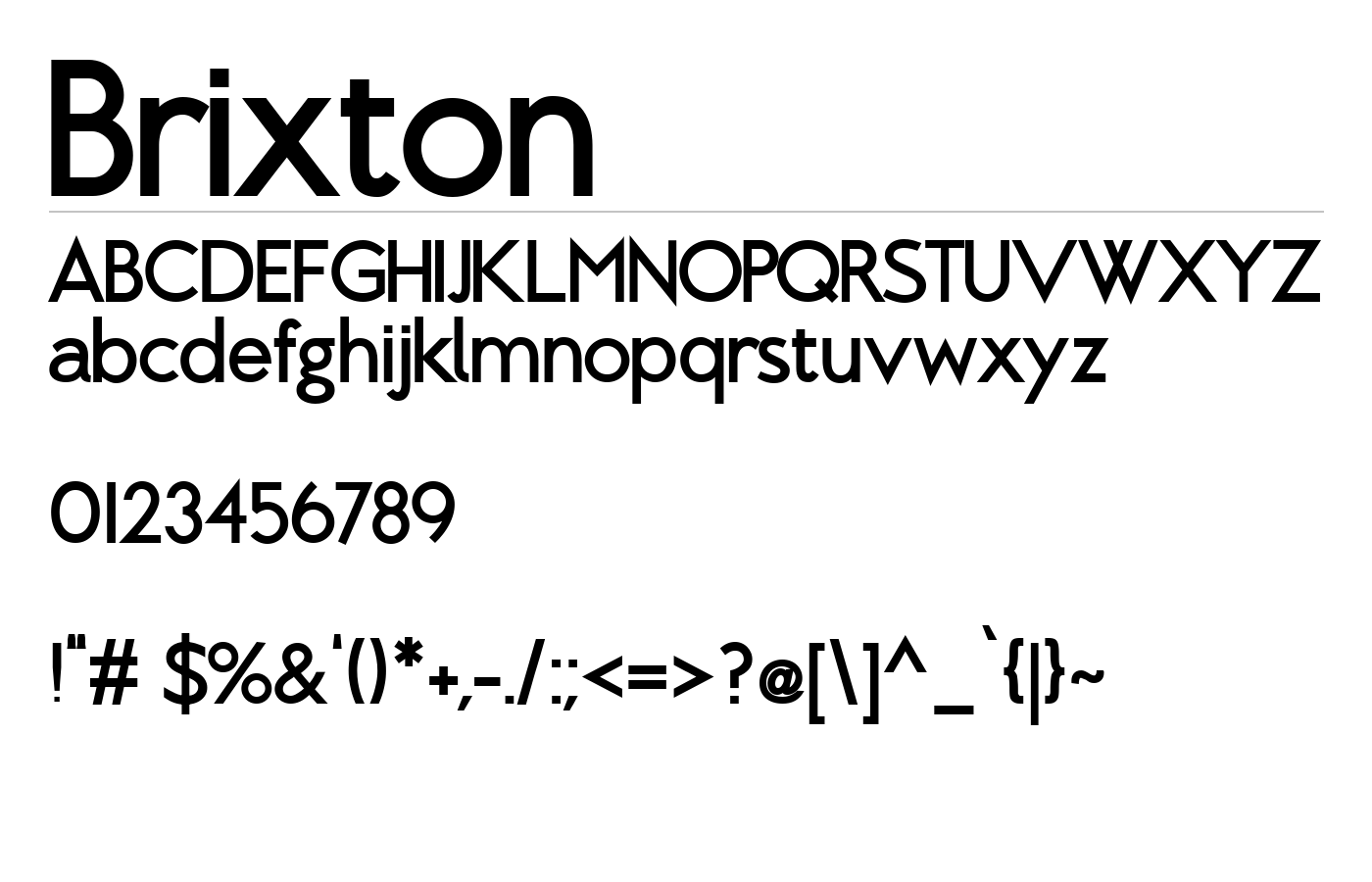
Brixton is a clean, modern sans serif font with a geometric feel and a slightly condensed width, making it efficient and stylish. Its balanced stroke contrast and distinctive letterforms, like the single-story 'a' and curved 'R' leg, give it a contemporary and professional look ideal for headlines, branding, and editorial use. This versatile typeface works well in both digital and print, lending a sleek and approachable tone to any design.
Brixton Font
About Brixton Font
| Font family | Brixton Font |
| Designer | Luke Ferrand |